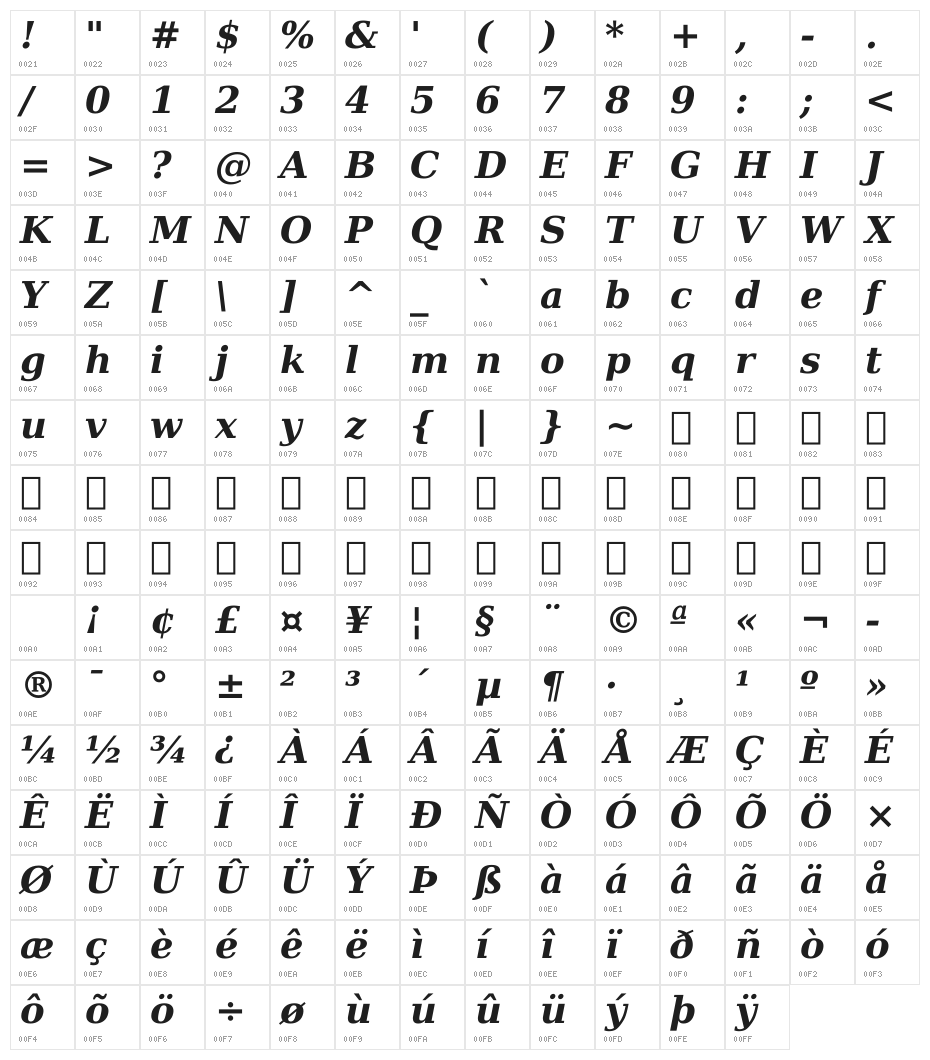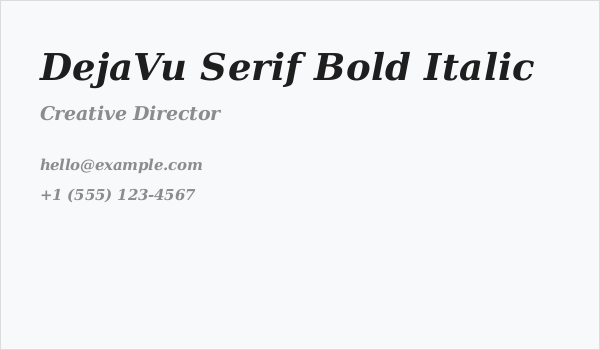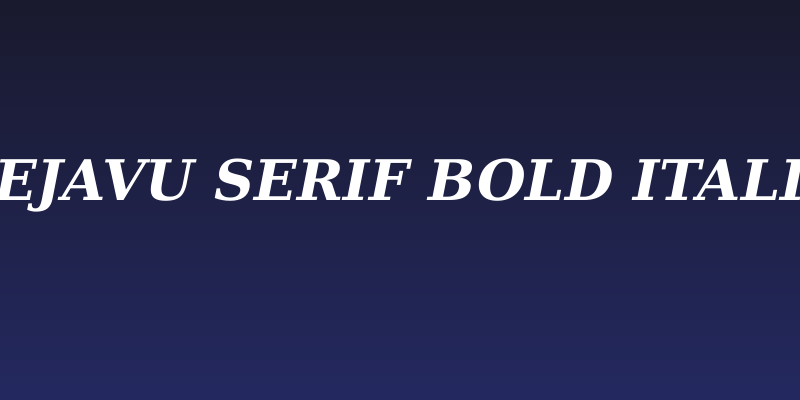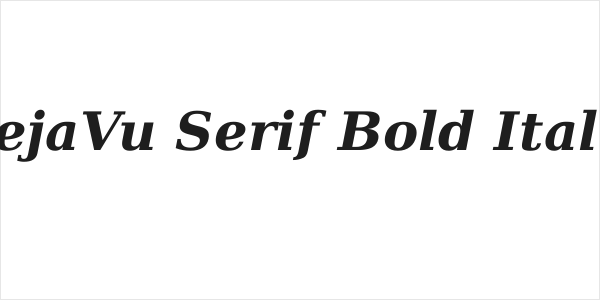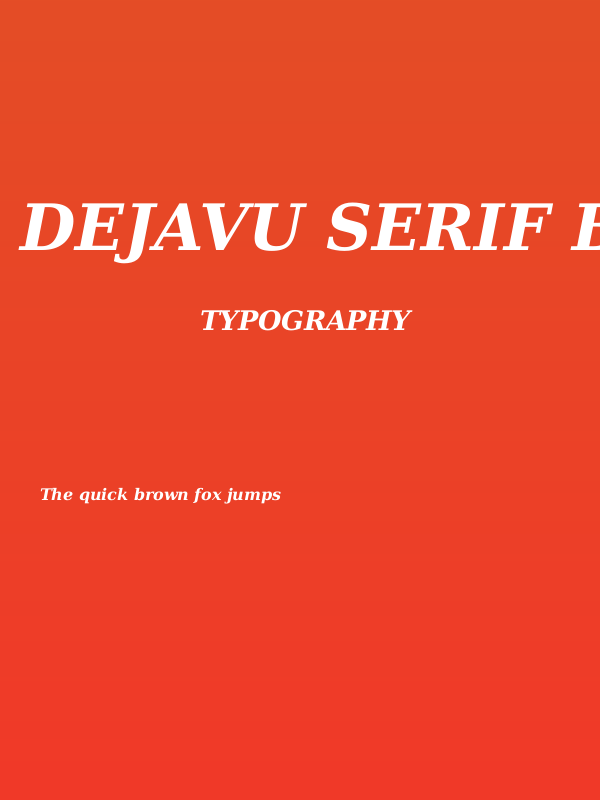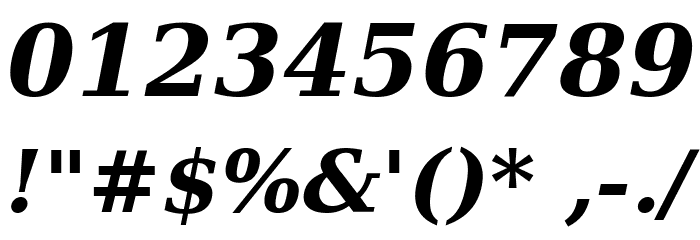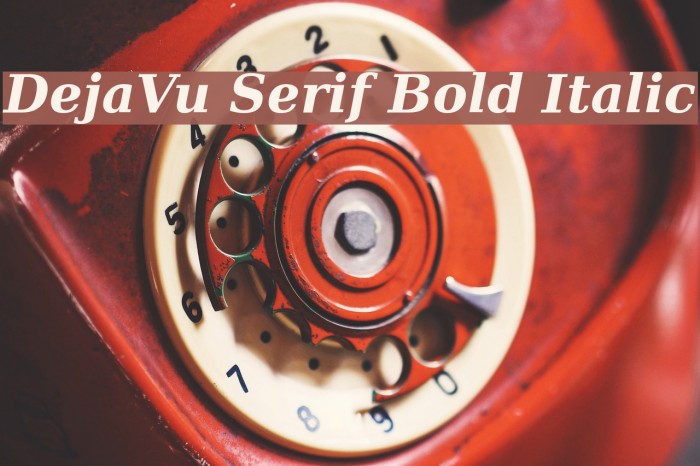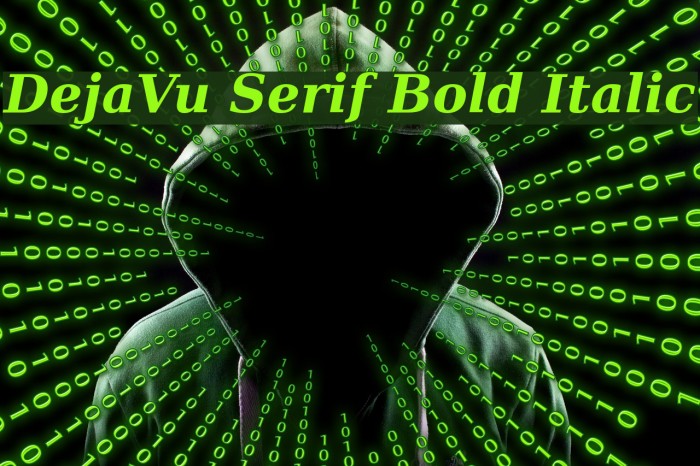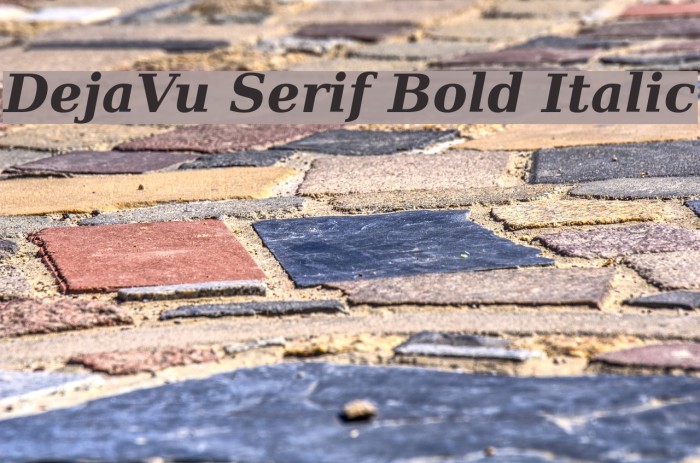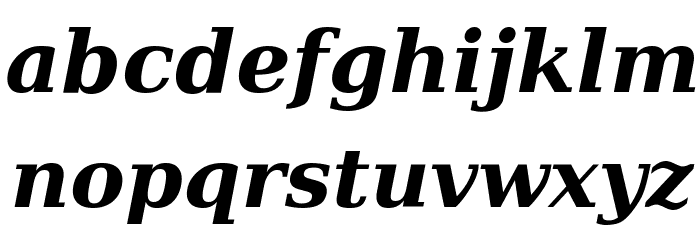
DejaVu Serif Bold Italic Font
DejaVu Serif Bold Italic Description
This font exhibits a classic serif style with a bold and italicized presentation, offering a strong and dynamic appearance. The serifs are pronounced, adding a traditional touch, while the italic slant provides a sense of movement and elegance. The bold weight ensures that the characters stand out, making it suitable for attention-grabbing headlines or titles. The overall design maintains a balance between readability and style, with medium contrast in stroke thickness that enhances its legibility. The character spacing is normal, allowing for clear distinction between letters, which is essential for both print and digital media.
| Proposed Projects | Ideal for book covers, editorial headlines, branding materials, and formal invitations. |